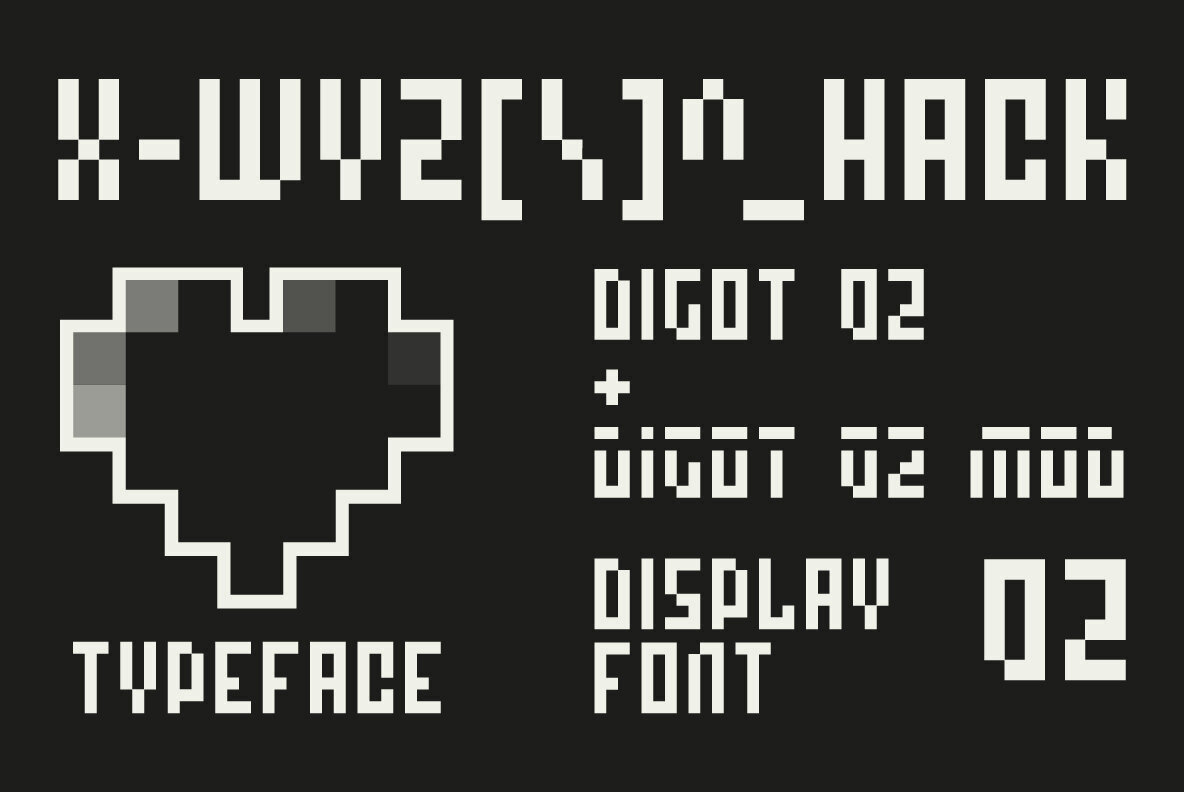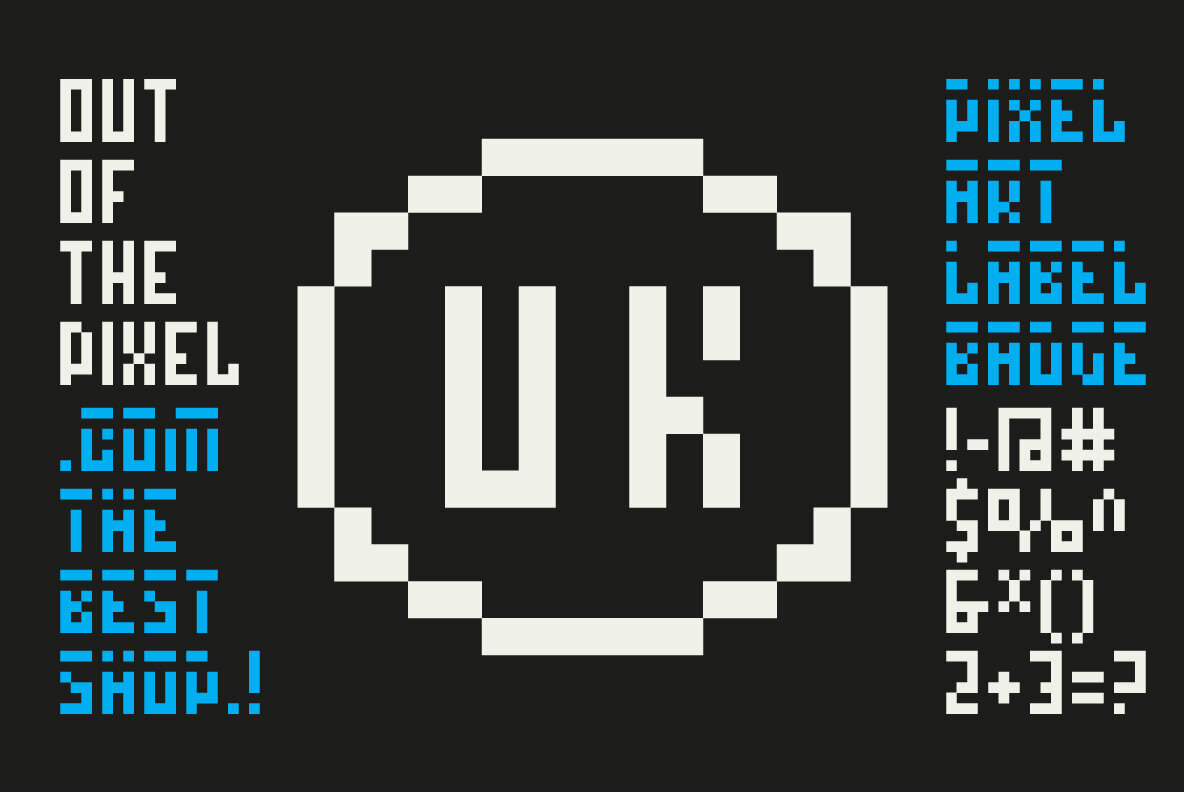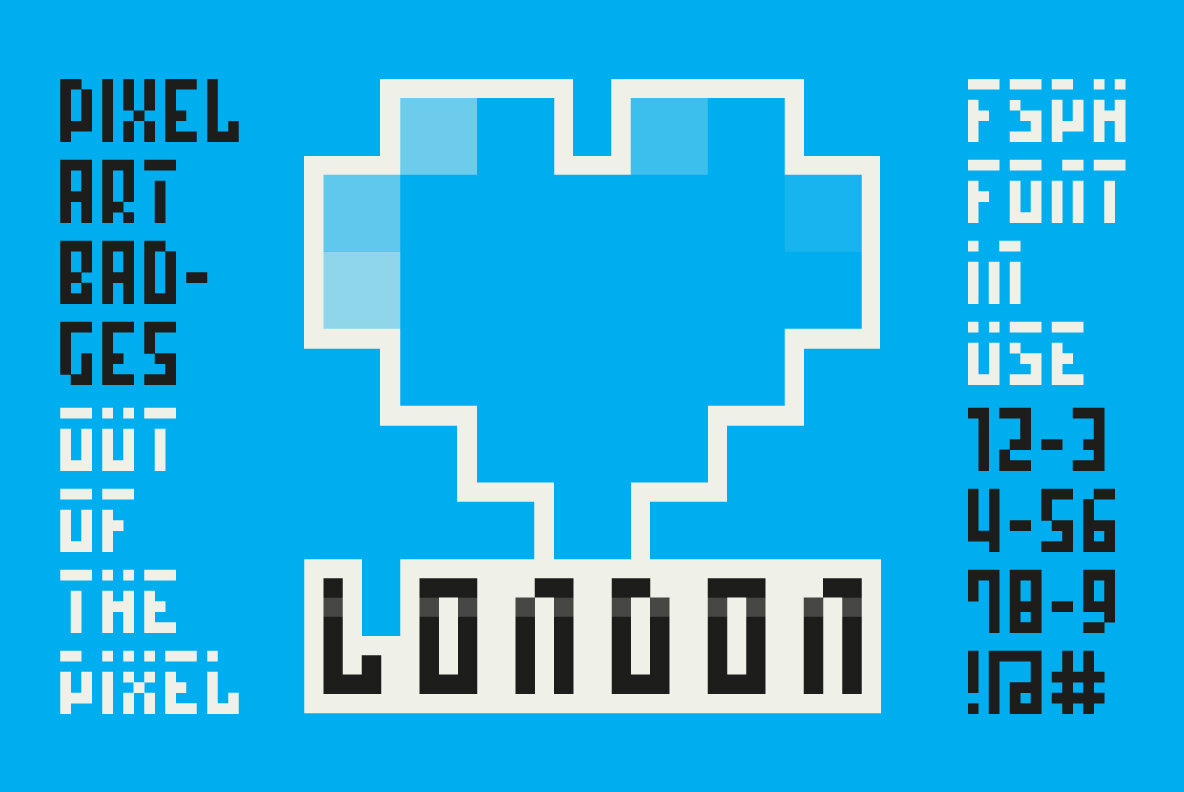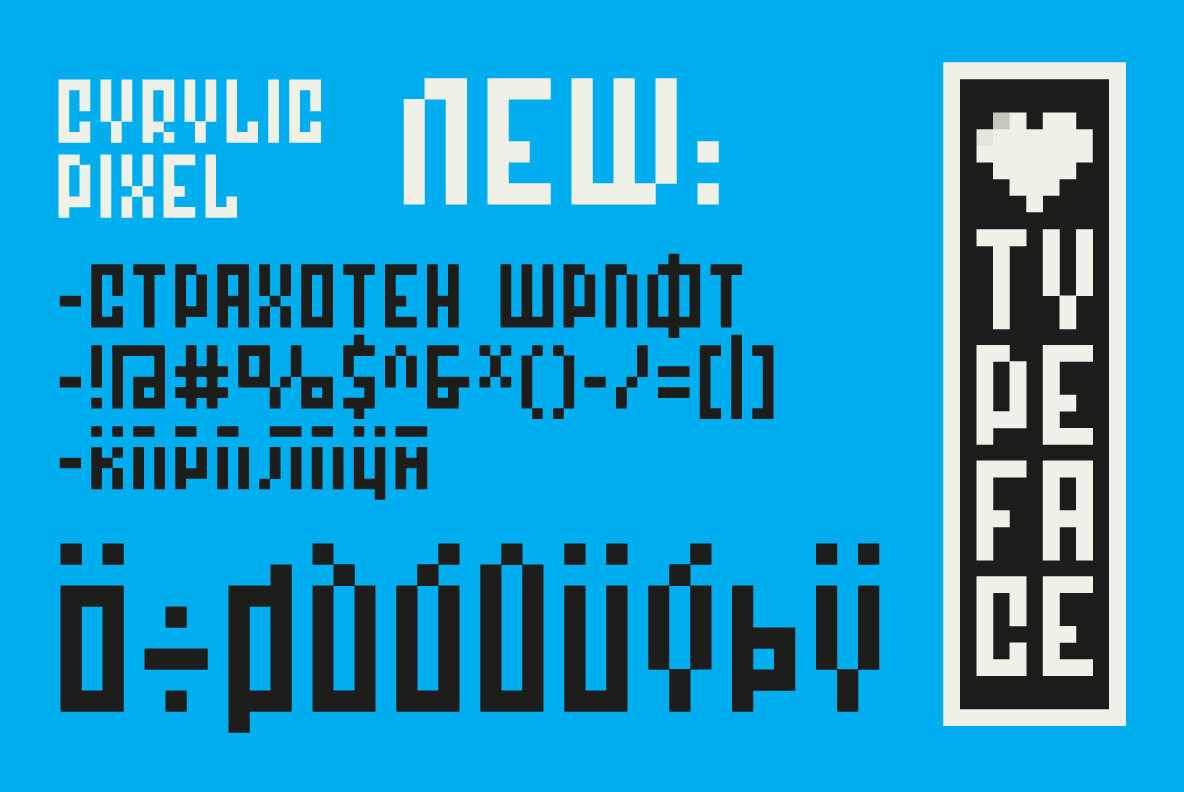
Digot 02 Font
Digot 02
Digot 02 Mod
Digot 02 is a pixel-style, grid-based, display typeface.
This is another version of Digot type. Compared to Digot, it is characterized by a more slender form, the letters are taller and narrower, which makes the font lighter.
The font is characterized by its simplicity, attention to detail, and original form.
You can use it in a wide variety of projects. It gives many possibilities for creating graphics.